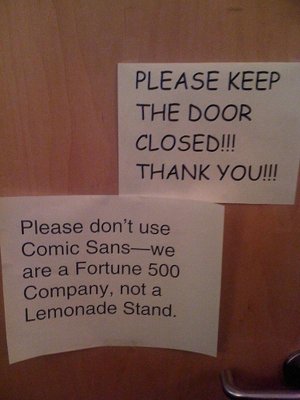
Here's a new fonts I'm using now
So I found this font that I like too. I'm a fan of somewhat handwriting font in a way. I found this on XDA. It's smaller so I had to increase the font size to extra large to see it best but I like it equal to comic sans and I'm using it right now for a while. I just like the handwriting style font and always have. Nothing wrong with the stock font but I'm a huge of customizing things to my own vision. I can't think of another phone that allows the user to have this much opportunity to customize just about everything as the Honor 8 does. Here's a pic of the new font I'm using now. What do you guys think about or do you even like it?
It looks like Comic Sans, and I think Comic Sans is the most over used, unprofessional font out there.
No it's not comic sans as that was what I was using and why comic sans gets such a bad wrap blows my mind. I mean it's just a font lol. It's not like the other party can see your font. I like comic sans and will I'm sure go back to it at some point but this one is not comic sans. I forget the name but its a handwriting font which I personally tend to like over the stock font. The cool thing is there is a ton of different fonts to choose from for the honor 8 to please everyone's likes. To me I see nothing wrong with comic sans other than most people think it's bad bc they read articles that say it bad. Just because the article says that it doesn't mean it's bad. It's just a viewpoint of the one who wrote the article. I find it to be odd that when people say comic sans is bad they follow it up by articles or public comments which in my eyes only feeds the bias part of the view point. Who cares if a writer thinks it's bad. That's one person's judgement I guess making others automatically to think it's bad too. Honestly I don't see what's wrong with it but I like the handwritten type font so that's what I typically use most of the time if the phone will allow for a font change. When I've used Samsung phones in the past I used a Dave Gibbons font that looks a lot like comic sans but his font doesn't get a bad wrap so I think it's a bandwagon effect. Everyone just jumps aboaord the writers ship just because he wrote badly of it. I think it's funny. But I've never been one to bandwagon anyway though.